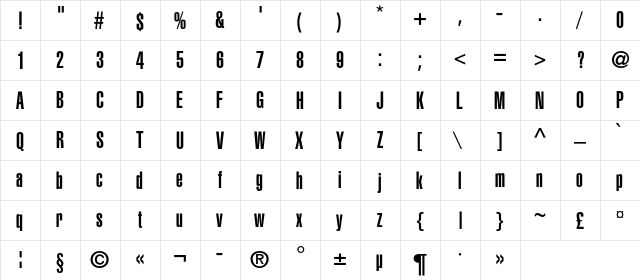
HeliosUltraCompressedC Regular
Design Context for HeliosUltraCompressedC Typeface
HeliosUltraCompressedC offers clean, dependable letterforms without strong stylistic allegiance, making it a practical choice for designers who need flexibility.